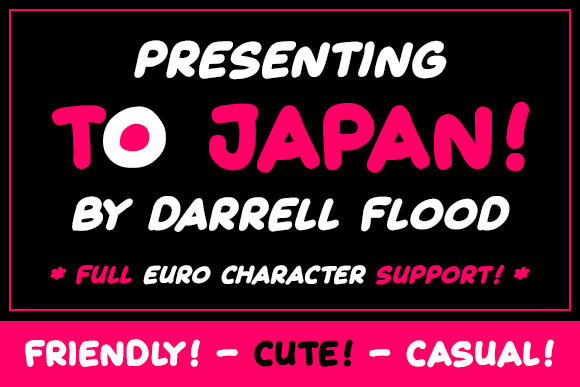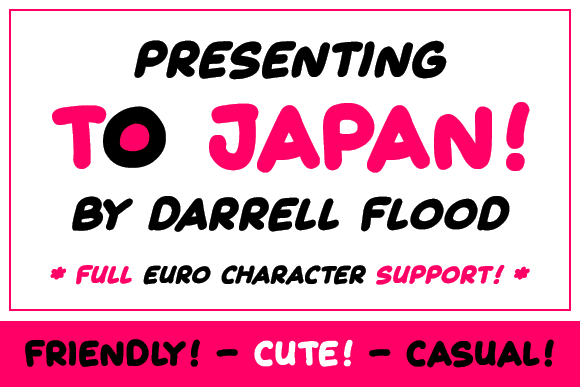
HomeScript FontsTo Japan Font Script Fonts To Japan Font FacebookXPinterestWhatsApp To Japan Font Poster 2 About To Japan Font An ultra-casual hand written font in a bubbly, bold style. Perfect for cartoons and comic strips! DOWNLOAD ON CREATIVE FABRICAThis font is sold and delivered by Creative Fabrica. Font Canyon may earn a commission if you buy through this link. People also explored Alica Font Stinker Font Holican Font Kap Font Alissa Thomas Script Strange Dreams Font Ningst Smile Font Christmas Font Kelurahan Font 329 0 TagsTo Japan Font Previous articleCreative Twister FontNext articleRight Female Font LEAVE A REPLY Cancel reply Comment: Please enter your comment! Name:* Please enter your name here Email:* You have entered an incorrect email address! Please enter your email address here Website: Save my name, email, and website in this browser for the next time I comment. Personal Use Free Little Pigeon Personal Use Free Read more about this font Haris Wood Personal Use Free Read more about this font England Personal Use Free Read more about this font Cataclysmo Personal Use Free Read more about this font BLOG 5 Fonts That Will Dominate Design Trends in 2026 5 Fonts for 2026 That Will Dominate Design Trends Typography plays a critical role in visual communication, and as we look ahead to 2026, itβs... Transform Your Website: Elevate Your Typography with 7 Best Web Font Generators Free vs Paid Fonts: Why Investing in Premium Fonts Is Worth It Elegant Wedding Invitation Fonts β Handwritten & Script Fonts